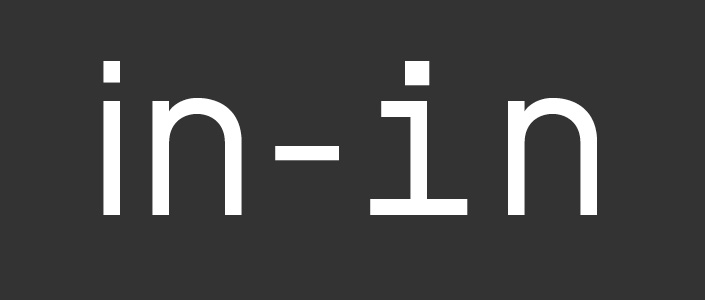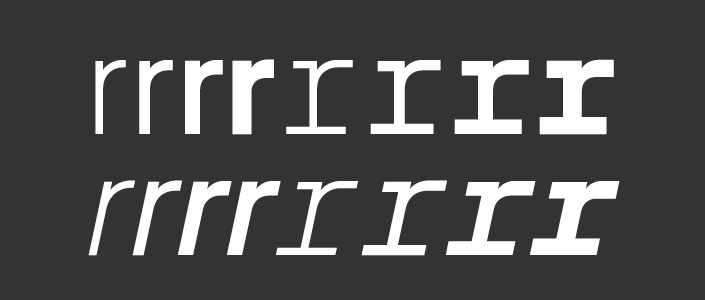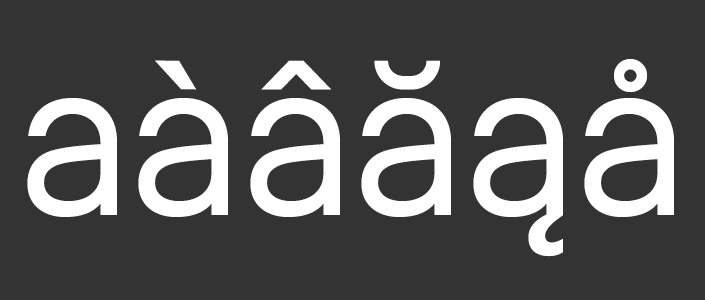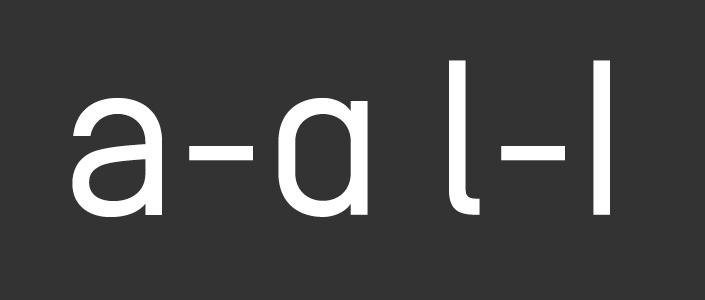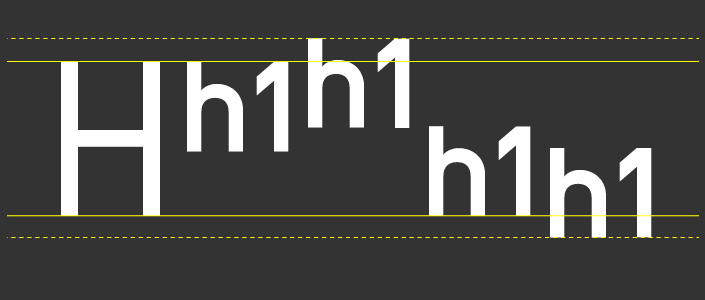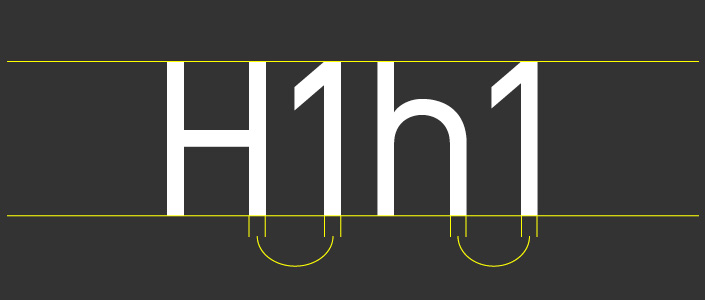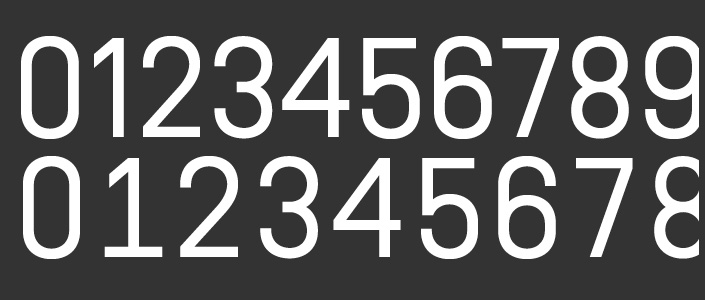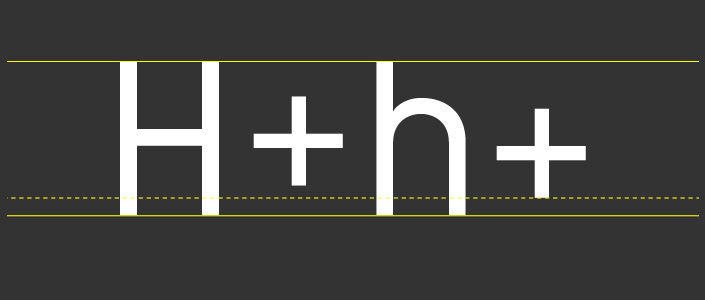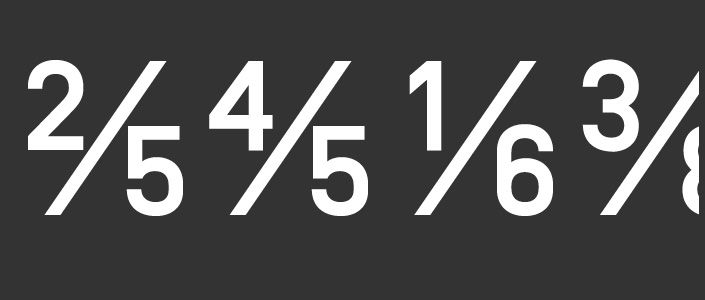
Simplon BP complete family
Simplon BP is no toy construction from the 90s. Taking its name from the definitive alpine pass and its spirit from the classic Swiss Normal (SNV) highway signage, Simplon BP is a constructed font true to the intent behind the universal standards of the modernist period. It was created using only two curves, one for the uppercase and one for the lowercase, and is equally powerful at large and small sizes. Simplon BP is not neutral; it's normal in the literal sense of the word: constructed with the goal of maximum regularity and versatility.
The repetition of curves and shapes made the font a perfect candidate for a monospace. Simplon BP Mono takes advantage of increased regularity to allow for a slightly wild side, incorporating geometric numbers, special diacritics and custom punctuation.
Styles
Simplon BP comes in four weights, each accompanied by italics.
Simplon BP Mono comes in four weights, each accompanied by italics.
Numerals
Simplon BP includes lowercase numerals for use in text (default), as well as uppercase numerals whose weights have been adjusted according to context (accessible by turning on OpenType features). The font also includes both tabular and proportional figures, and uppercase and lowercase math signs.
Language Support
Simplon BP is an OpenType pro font that supports many languages based on the latin alphabet:
Opentype features
The extended character set includes more than 100 additional languages beyond the normal PostScript character set, special alternates for ‘a’ and ‘l’, as well as numerators, superiors, denominators and inferiors. Access: Any OpenType/Unicode-savvy application.
Designer
Emmanuel Rey (b.1981) graduated in 2007 at ECAL/University of art and design Lausanne, Switzerland. He lives and works between Switzerland and Berlin, as a type designer, graphic designer and art director. He joined b+p swiss typefaces in 2011.